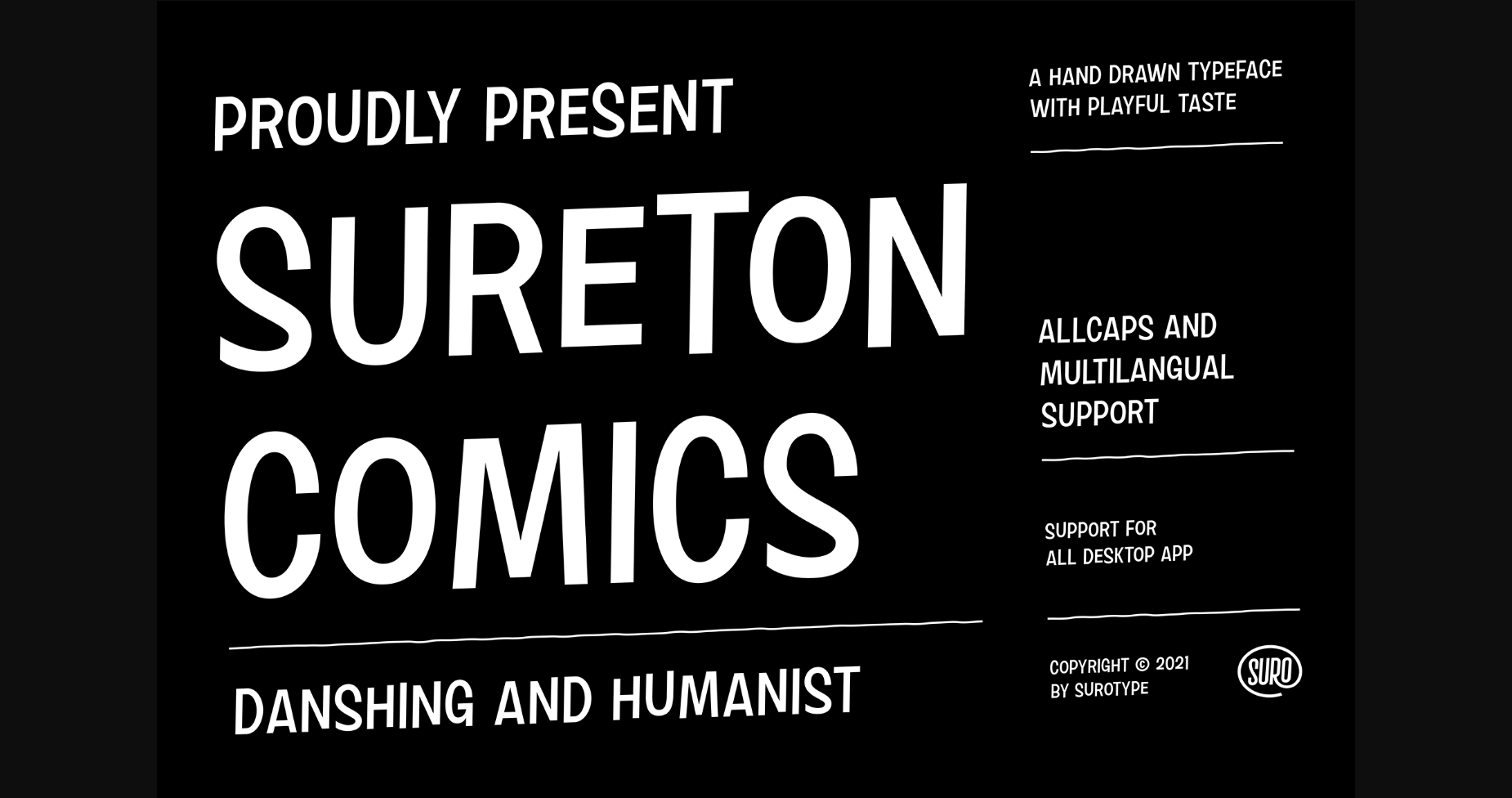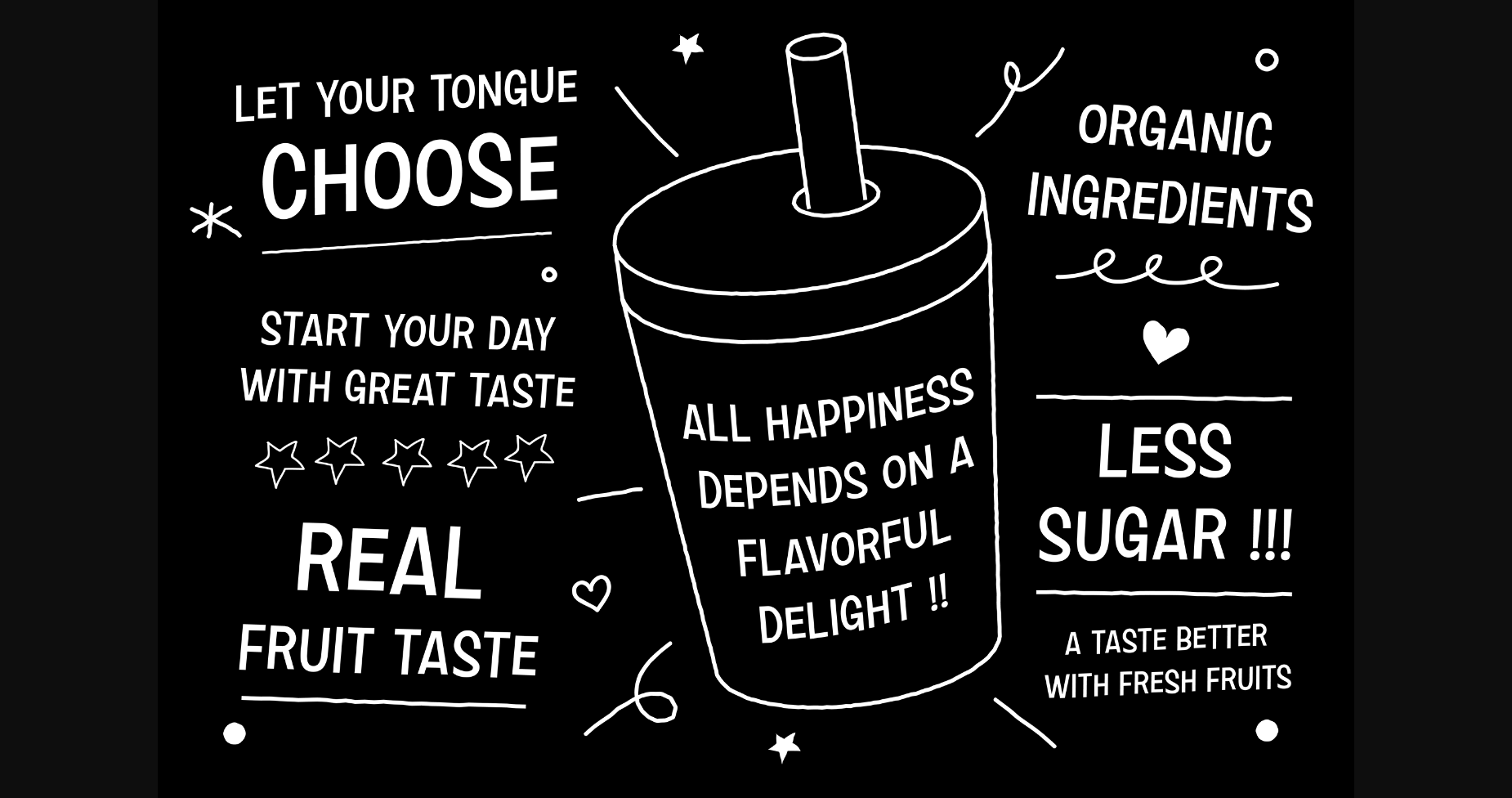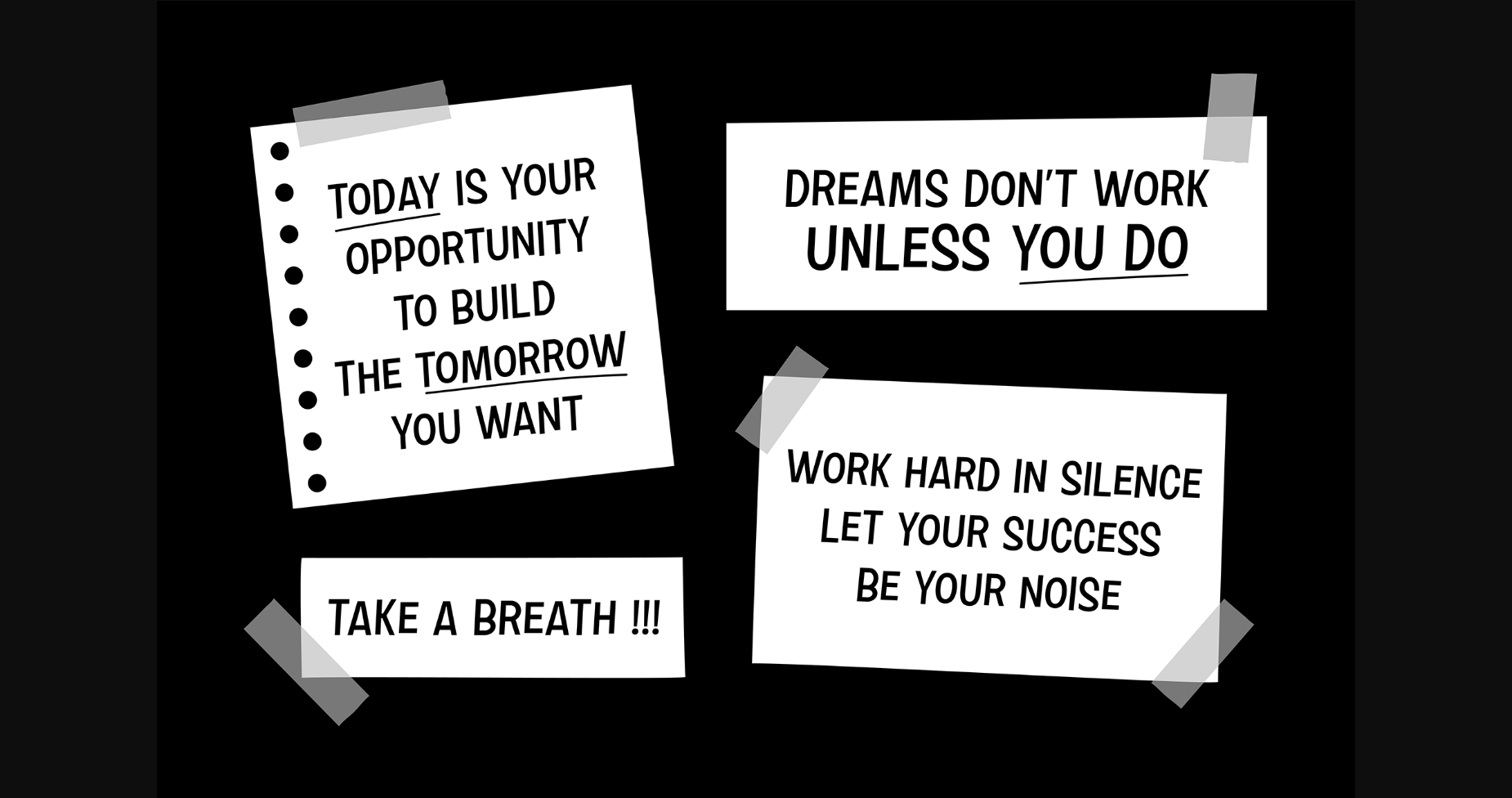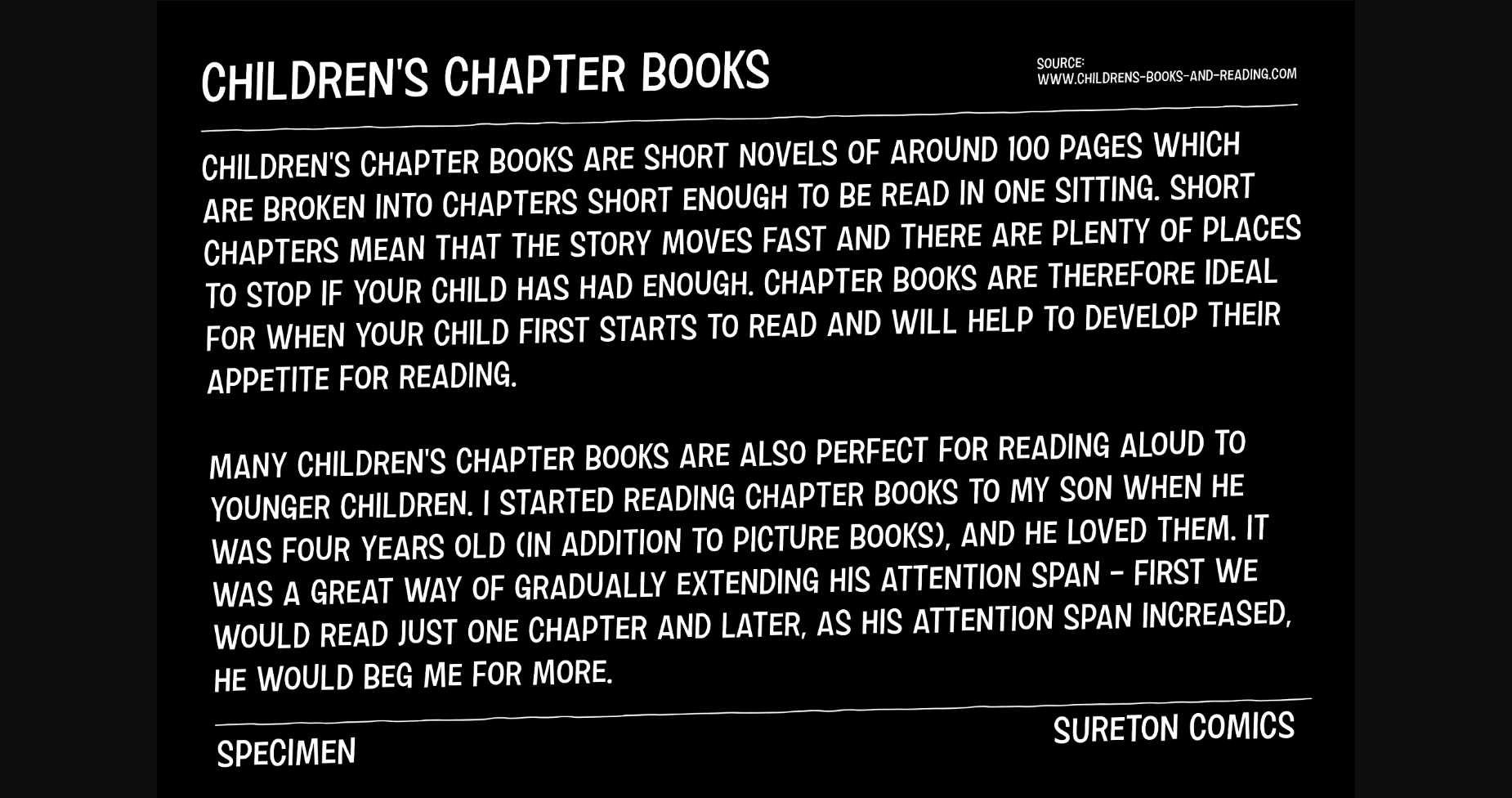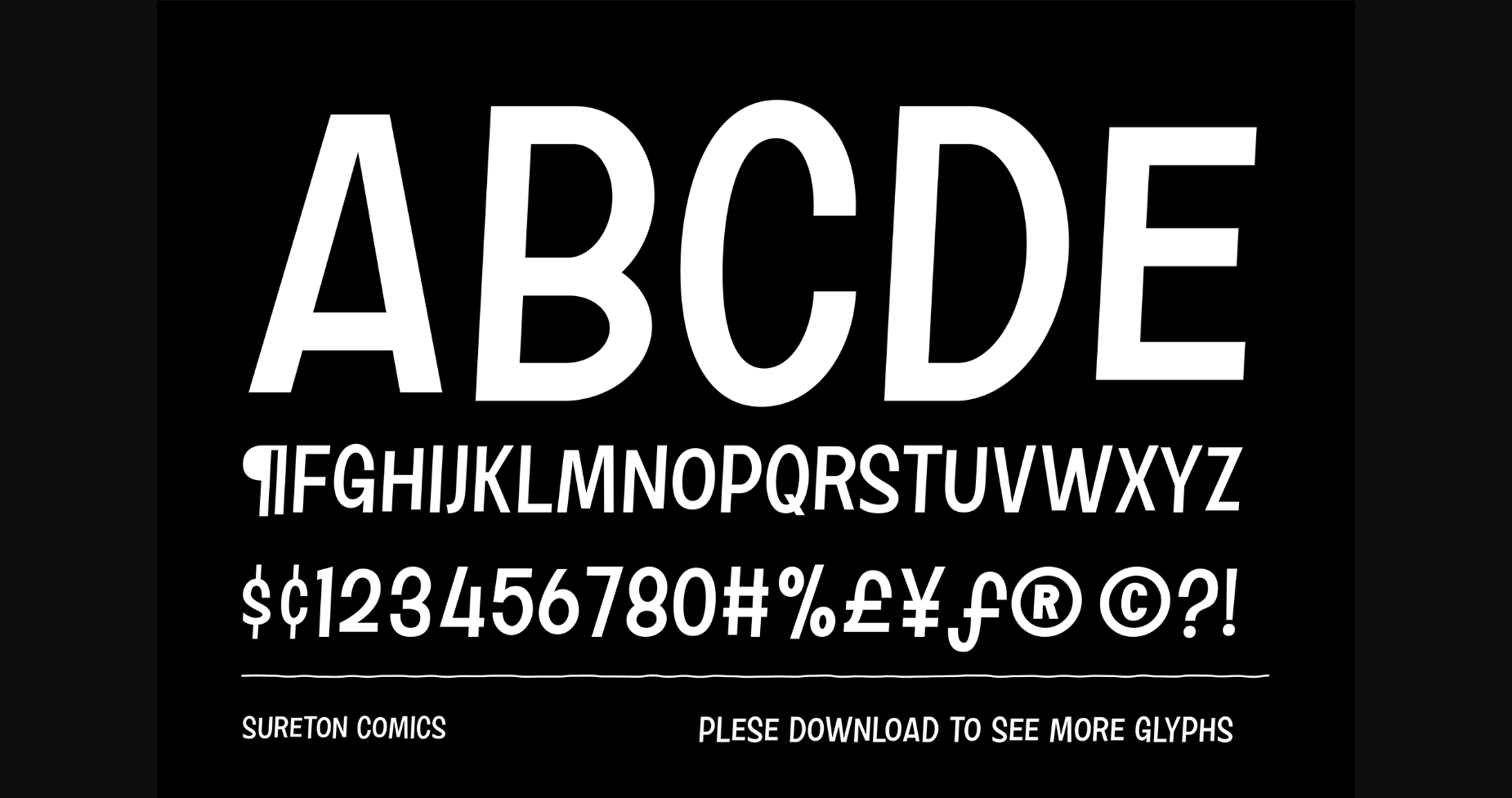
Sureton Comics Font
About Sureton Comics Font
Sureton Comics is a hand-drawn and neat sans serif font. It is suitable for headlines, wall signage, branding, movie titles, prints, logotypes, or any other item that needs clean and bold typography!